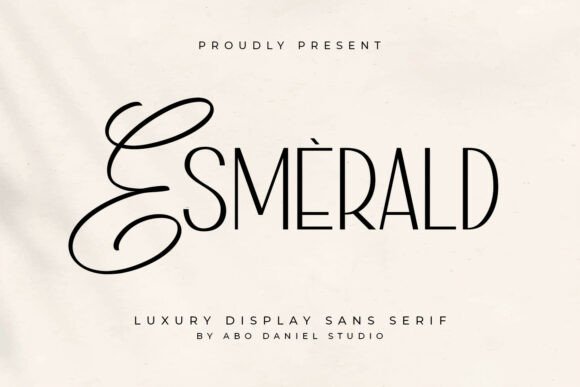
Introducing Esmerald Font: The Ultimate Luxury Display Sans Serif
In the world of typography, fonts play a crucial role in conveying messages, expressing emotions, and creating brand identities. Among the numerous fonts available, Esmerald Font stands out as a unique and luxurious display sans serif that combines the simplicity of sans serif with the elegance of calligraphy. In this article, we’ll delve into the features, benefits, and uses of Esmerald Font, exploring how it can elevate your designs and take your brand to the next level.
What is Esmerald Font?
Esmerald Font, also known as ESMERALD, is a distinctive typeface that blends the clean lines of sans serif fonts with the flowing curves of calligraphy. This fusion results in a sophisticated and eye-catching font that’s perfect for luxury brands, high-end products, and creative designs. Esmerald Font is designed to make a statement, adding a touch of elegance and refinement to any project.
Key Features of Esmerald Font
- Unique Blend of Sans Serif and Calligraphy: Esmerald Font seamlessly merges the simplicity of sans serif fonts with the beauty of calligraphy, creating a one-of-a-kind typeface.
- Luxury Display Sans Serif: Esmerald Font is designed for display purposes, making it ideal for headlines, titles, and promotional materials.
- High Versatility: This font can be used for various design projects, including branding, packaging, quotes, logos, t-shirt designs, tote bag designs, books, cards, banners, social media, and more.
- Elegant and Sophisticated: Esmerald Font exudes luxury and refinement, perfect for high-end brands and premium products.
Benefits of Using Esmerald Font
Esmerald Font offers numerous benefits for designers, marketers, and businesses. Some of the advantages of using Esmerald Font include:
- Enhanced Brand Identity: Esmerald Font can help create a unique and luxurious brand image, setting your business apart from competitors.
- Increased Readability: The clear and clean lines of Esmerald Font ensure excellent readability, making it perfect for body text and captions.
- Emotional Connection: The elegant and sophisticated design of Esmerald Font can evoke emotions and create a lasting impression on your audience.
- Flexibility: Esmerald Font can be used across various platforms, from print materials to digital media.
Uses of Esmerald Font
Esmerald Font is an incredibly versatile typeface, suitable for a wide range of design projects. Here are some examples of how you can use Esmerald Font:
- Branding and Logo Design: Esmerald Font can help create a luxurious and memorable brand identity.
- Packaging Design: Use Esmerald Font to add a touch of elegance to product packaging and labels.
- Quotes and Posters: Esmerald Font is perfect for creating eye-catching quotes and posters.
- T-Shirt and Merchandise Design: Add a stylish touch to your apparel and merchandise with Esmerald Font.
- Book and Magazine Design: Esmerald Font can be used for book covers, headings, and titles.
- Social Media and Digital Media: Use Esmerald Font to create engaging social media posts, banners, and digital ads.
Tips for Using Esmerald Font Effectively
To get the most out of Esmerald Font, follow these tips:
- Pair with Neutral Colors: Combine Esmerald Font with neutral colors to create a balanced and sophisticated design.
- Experiment with Font Sizes: Play with different font sizes to create visual hierarchy and emphasize key messages.
- Add Texture and Patterns: Mix Esmerald Font with textures and patterns to add depth and interest to your design.
- Keep it Simple: Avoid overusing Esmerald Font; use it sparingly to maintain its luxurious feel.
Esmerald Font is a unique and luxurious display sans serif that can elevate your designs and take your brand to the next level. With its elegant and sophisticated design, Esmerald Font is perfect for high-end brands, premium products, and creative designs. By understanding the features, benefits, and uses of Esmerald Font, you can unlock its full potential and create stunning designs that leave a lasting impression.
Get Ready to Elevate Your Designs with Esmerald Font
Whether you’re a designer, marketer, or business owner, Esmerald Font is an excellent addition to your typography arsenal. With its versatility, elegance, and sophistication, Esmerald Font is sure to become a go-to font for luxury brands and creative designs. So, what are you waiting for? Explore the world of Esmerald Font and discover how it can transform your designs.